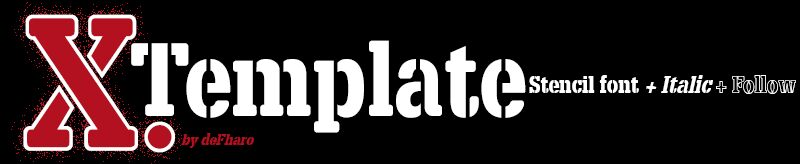
X.Template
X.Template es una tipografa stencil, negra y condensada, con gruesas serfas redondeadas.
X.Template is a stencil typeface, black condensed, with thick rounded serifs.
X.Template es una tipografía Stencil, negra y condensada, con serifas cuadradas de acabado redondeado. Una virguería para diseño de carteles y posters.